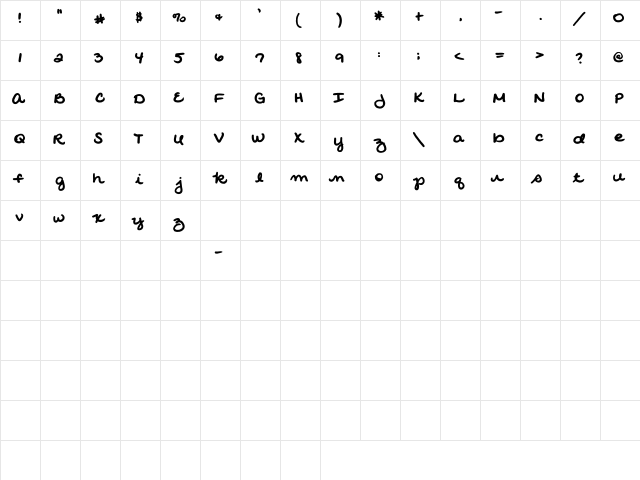
2Peas Oatmeal Cookie 2Peas Oatmeal Cookie Font Preview
Design Context for 2Peas Oatmeal Cookie Typeface
2Peas Oatmeal Cookie is a composed and adaptable typeface that performs quietly and consistently across a wide range of design contexts.